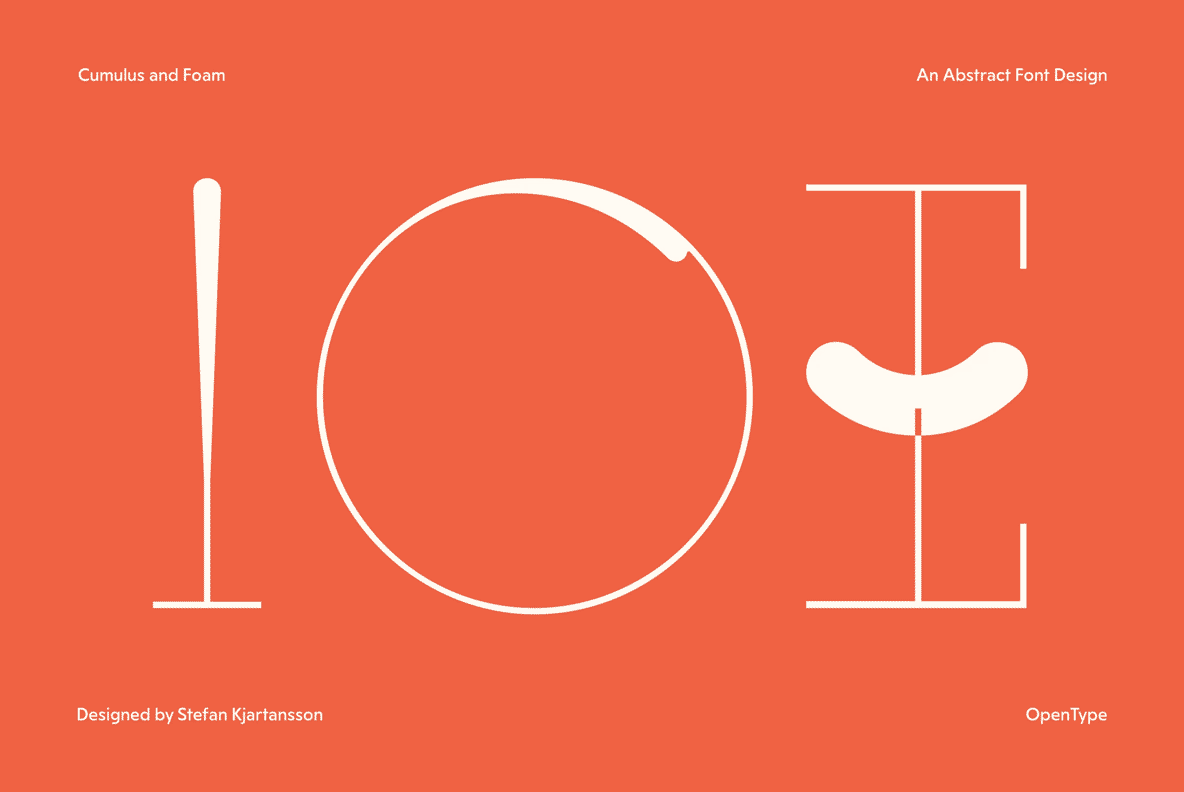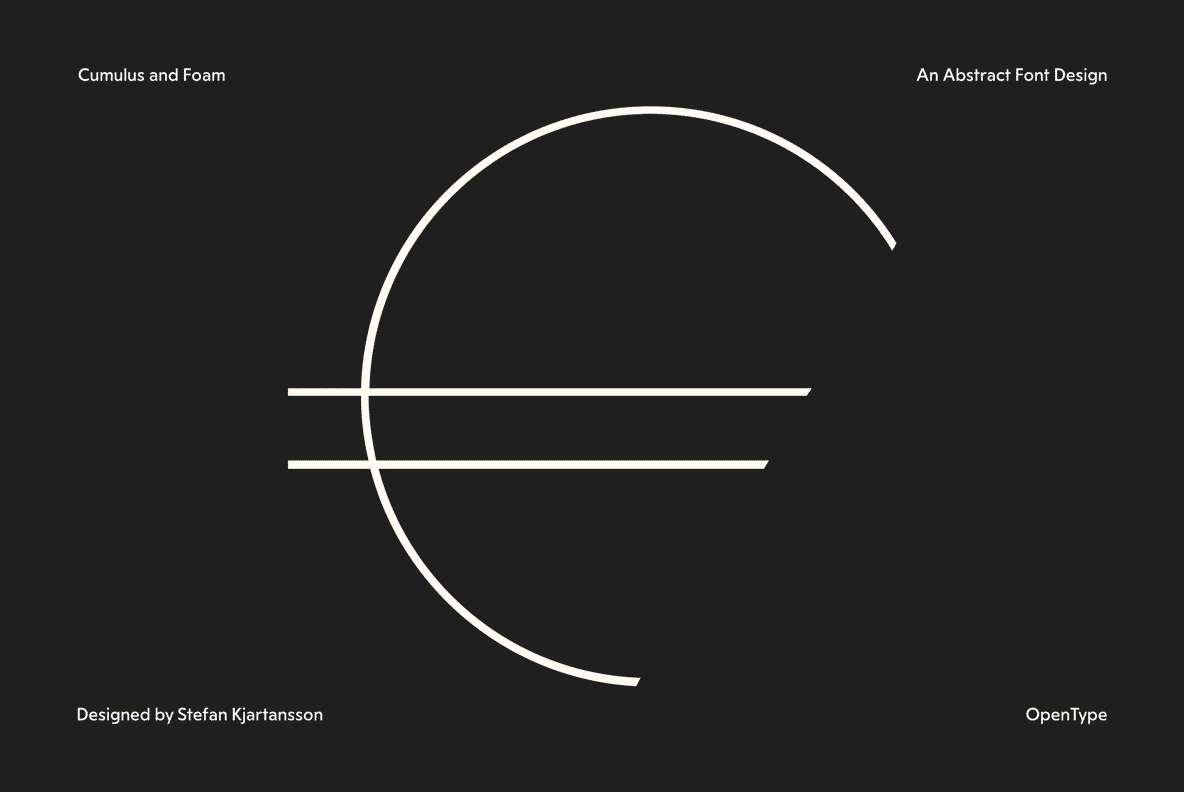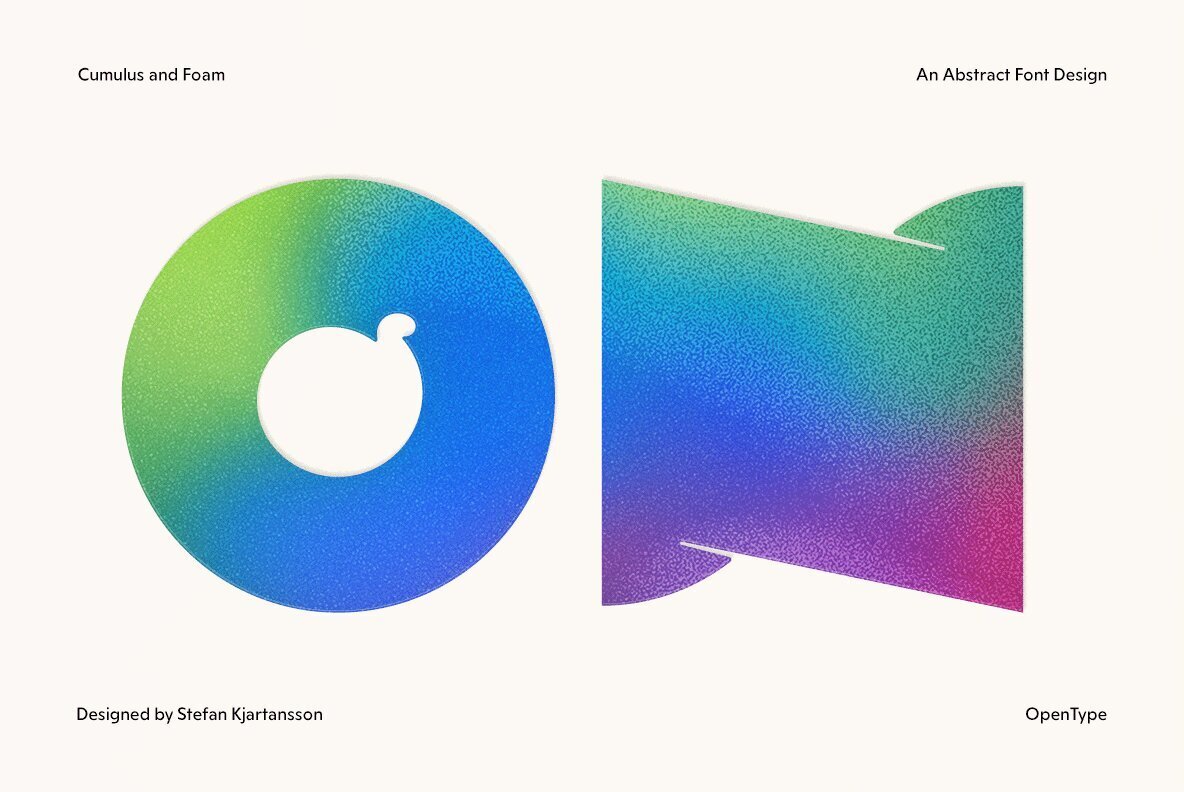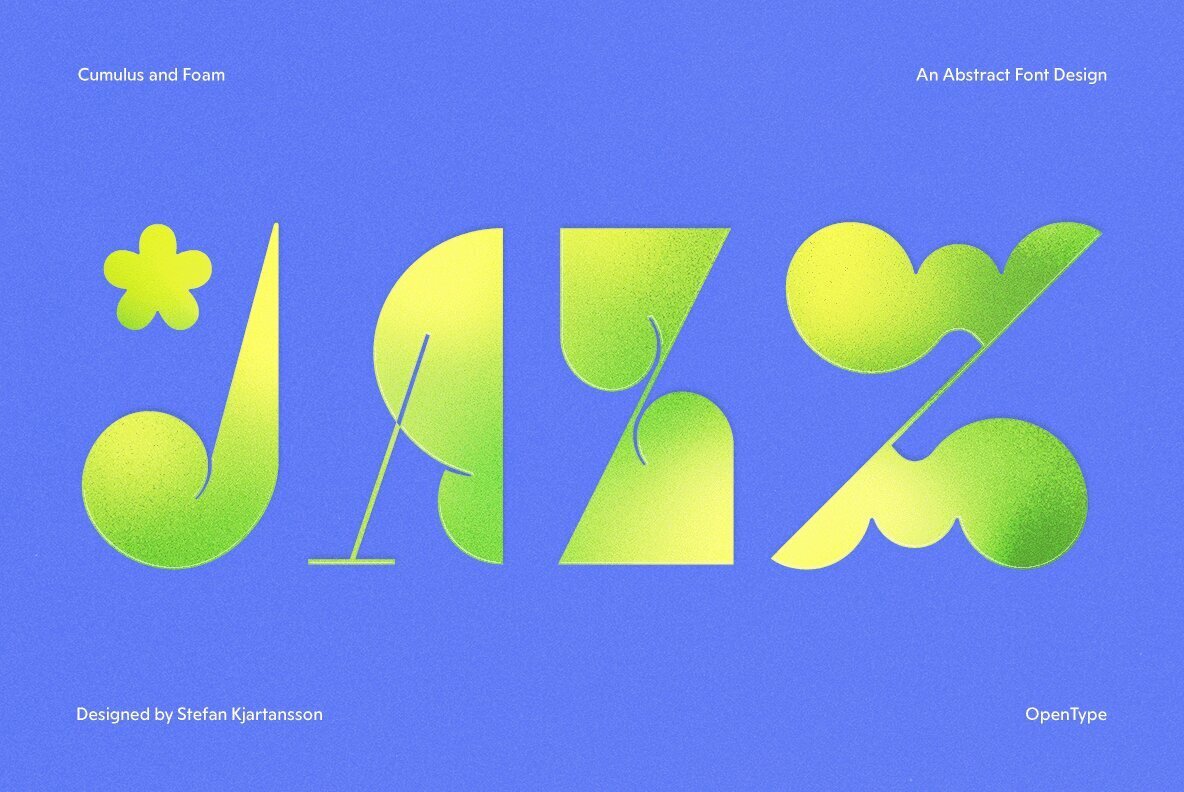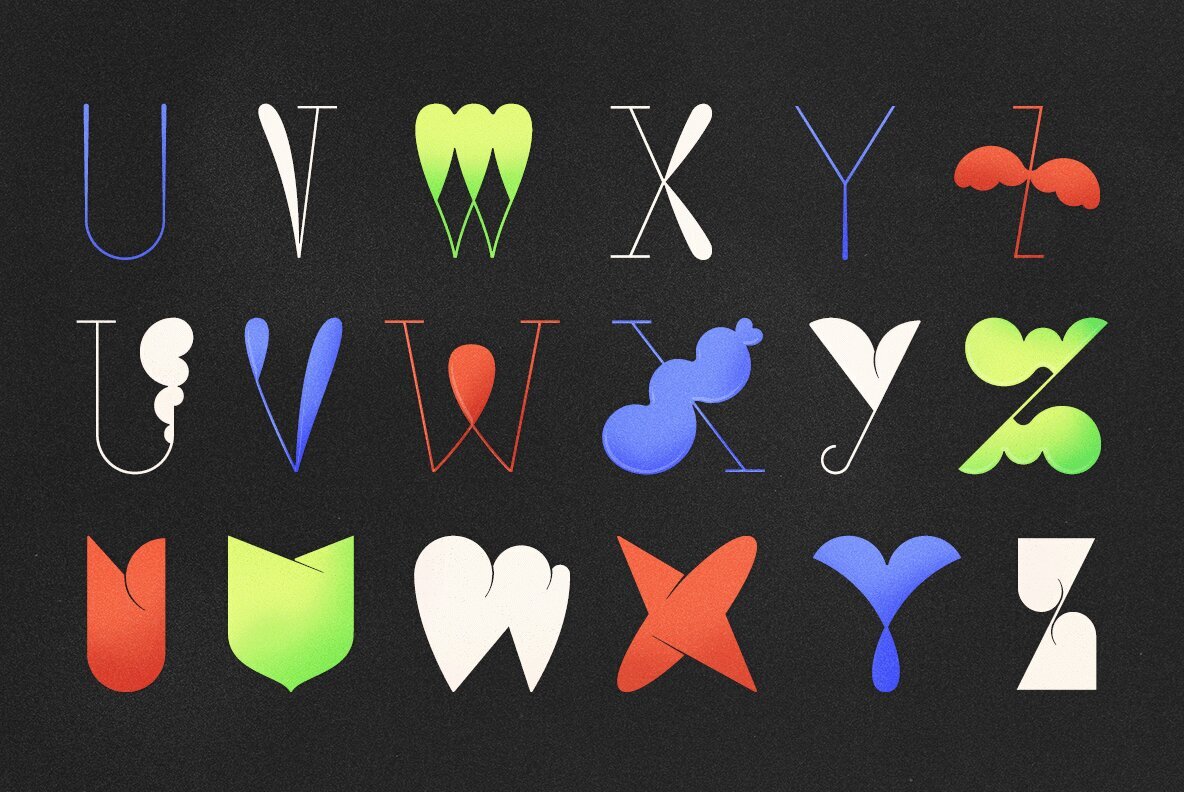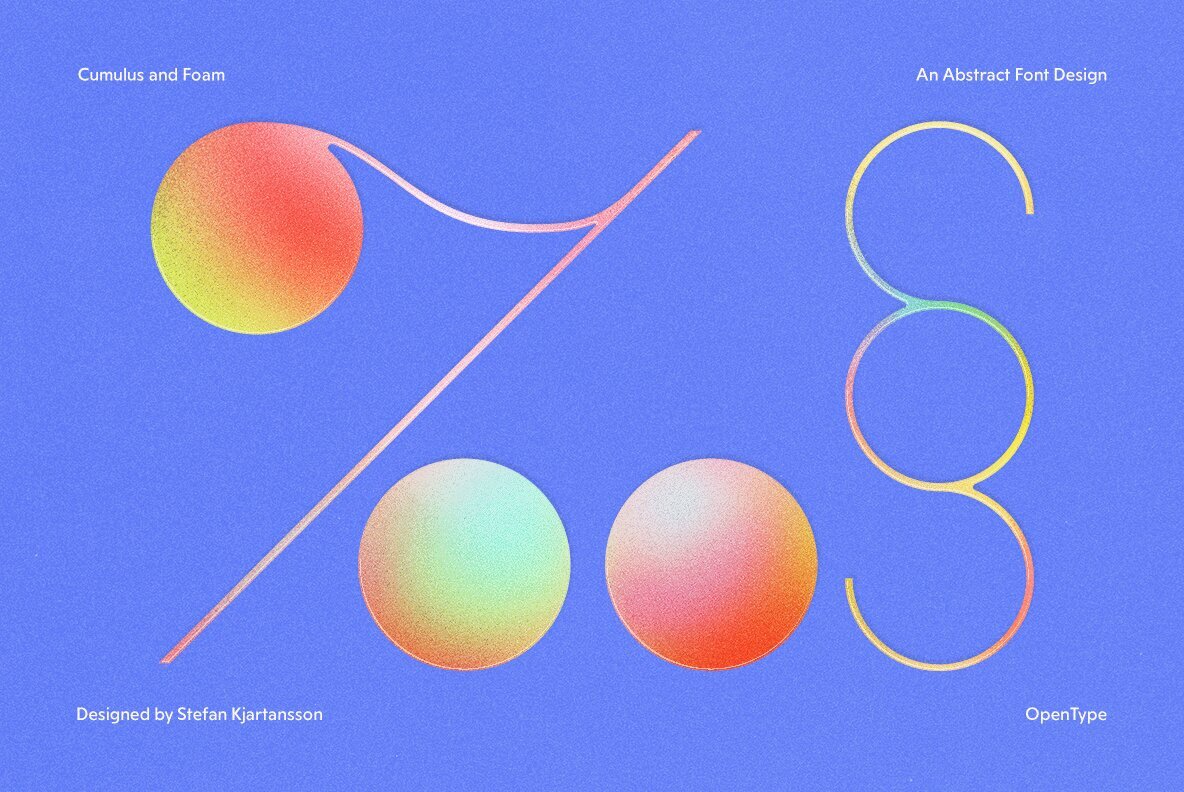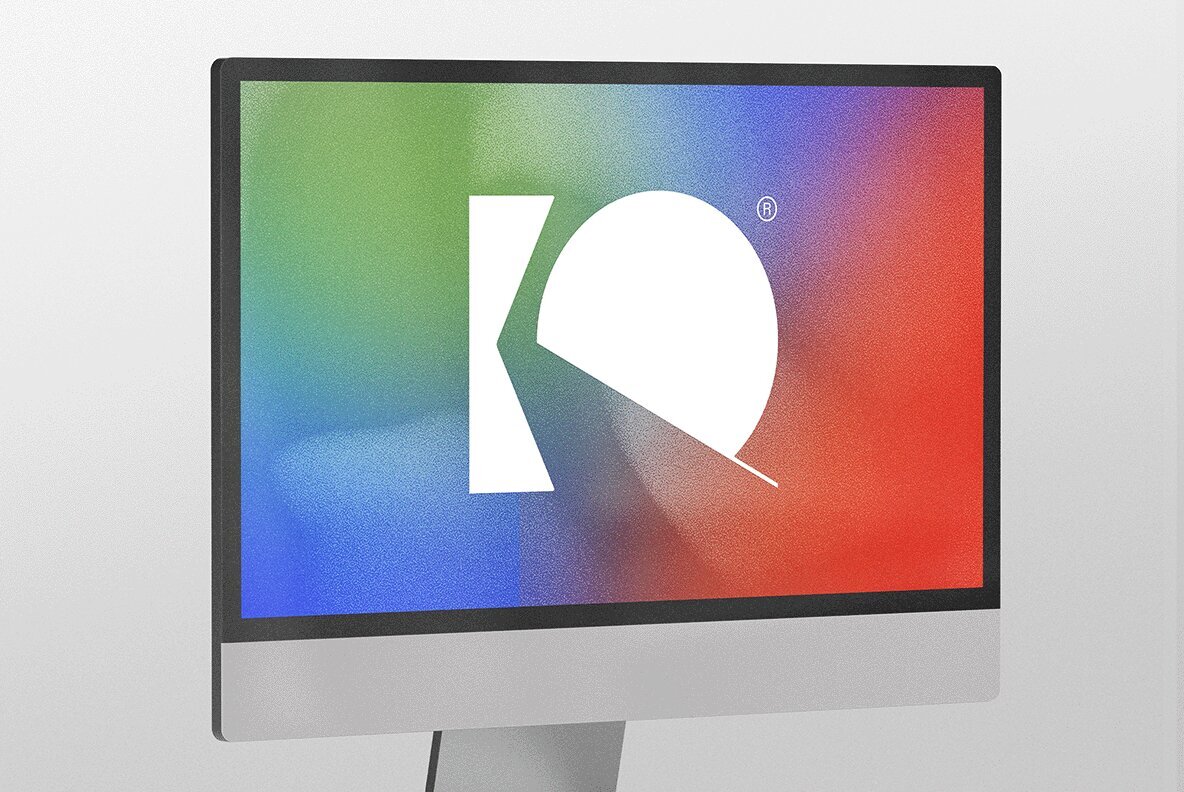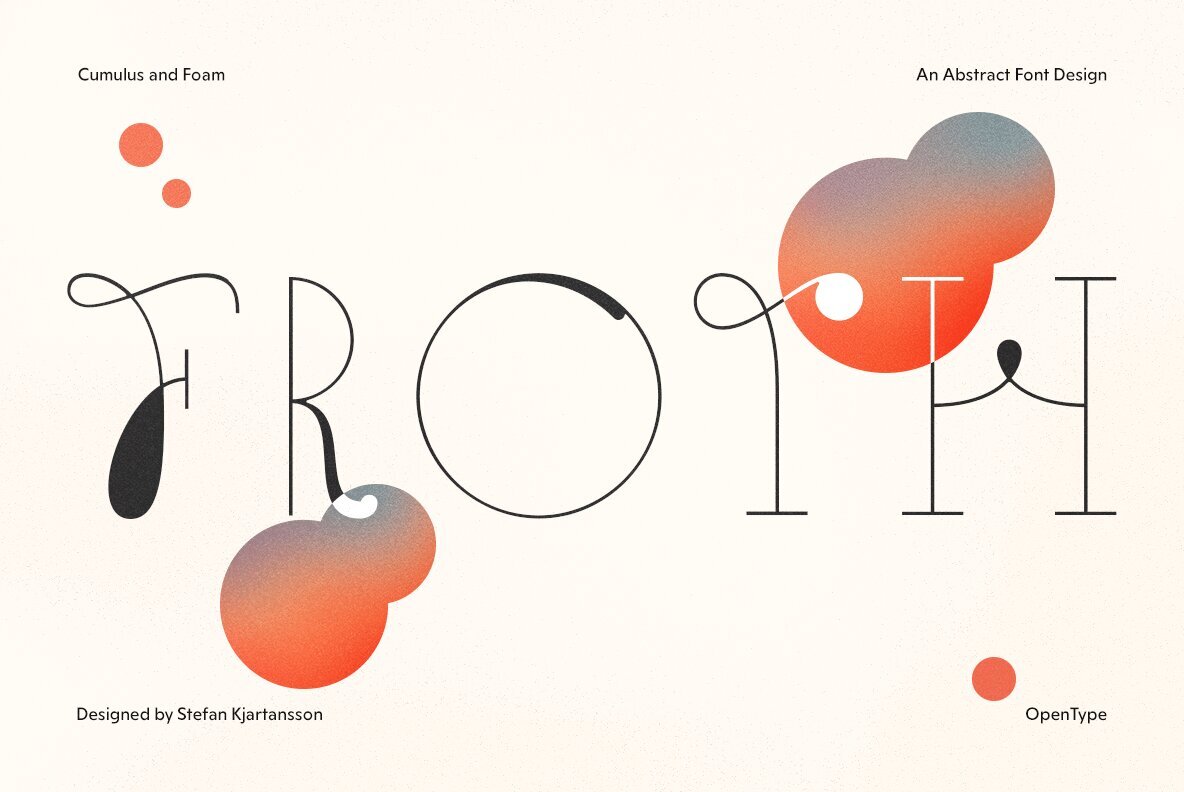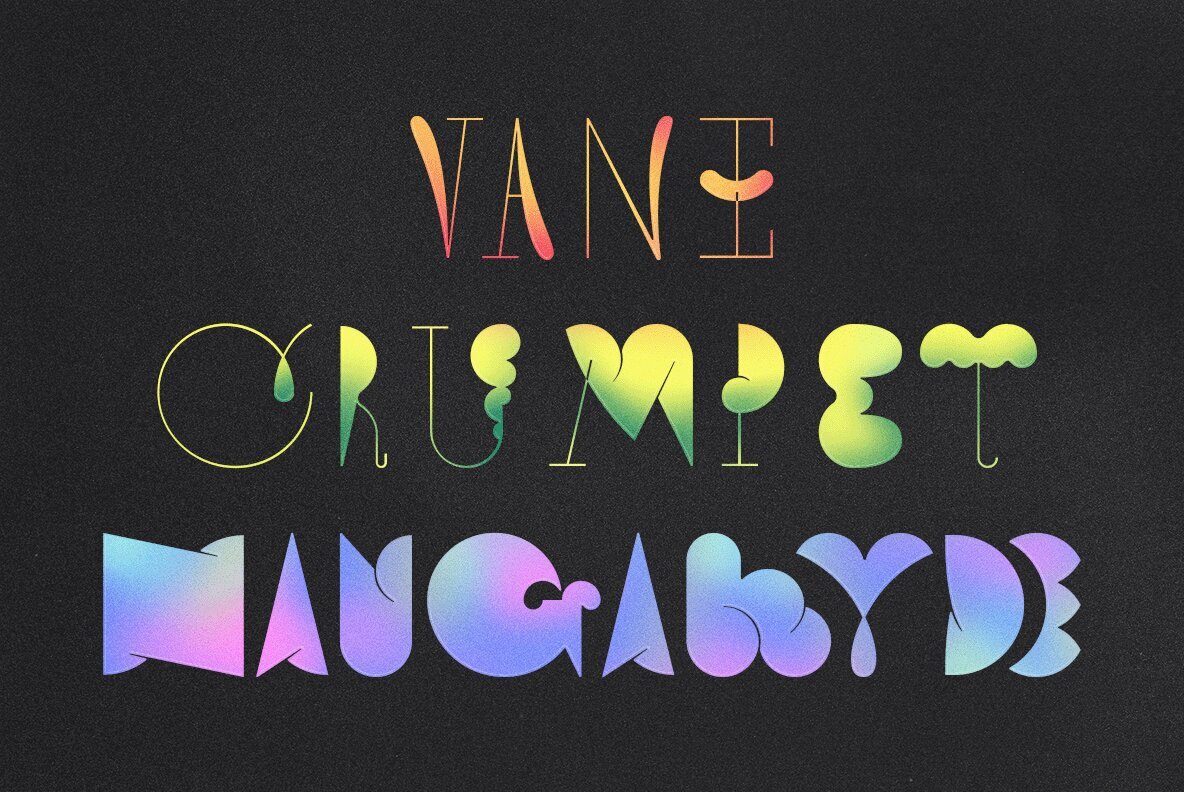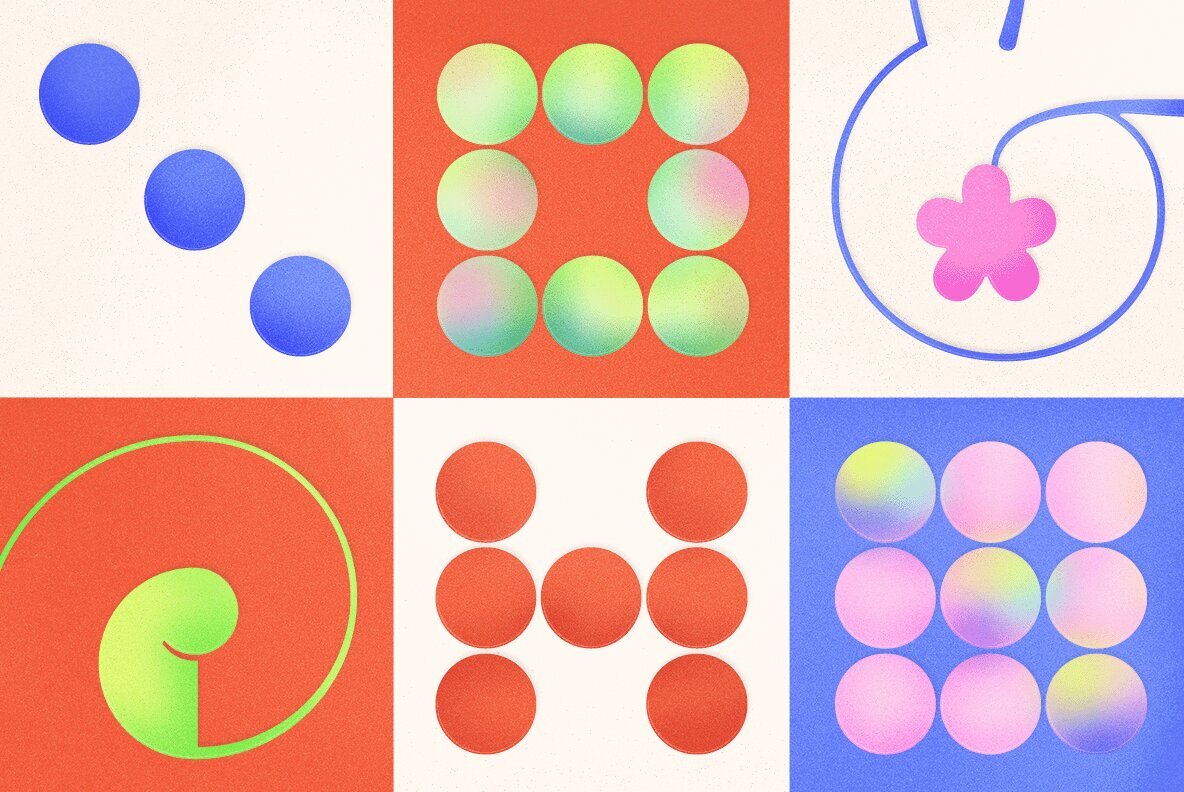
Cumulus and Foam Font
by Stefan Kjartansson
Cumulus & Foam, the most beautifully grotesque font of our time. As it is in life, it is in art: beautiful is easy, reassuring, and affirming. It commands a comfortable space, and reliably adheres to the rules established therein. In its style, message, and momentum, beautiful is a confirmation that our systems make sense, and, in its most successful form, allows us to inhabit that proof. And we are blissful to be there! It is a space that hears our tremors, and responds with a mollifying "hush". In this way, beautiful itself did not need to be created; it was created because it is needed. What, then, of the unbeautiful? The value of a dischordant note, garish palette, misshapen form? Cumulus & Foam is a specimen for such investigation. In Stefan Kjartansson's newly-minted font, the characters spawn awkward spaces and strange intersections. Dialogues within the unruly family are without agreed message, and the three uppercase typefaces - with surnames Crumpet, Vane, Naugahyde - have abandoned the classic unifying key. Their influences are discernible - brash collisions of the 1980s, art deco's voluptuous bubbles, and dadaism's implausible juxtapositions - but otherwise they are incorrigible. In short, they don't seem to be listening to the rules of beauty, and they don't really care. And herein a freedom was born. They tease us with allusions to peacocks, mustaches, umbrellas and feathers. They blossom, heave, and knock each other around. They are a glorious parade of grotesque enthusiasts. They offer proof of nothing. The duty of the unbeautiful is not to affirm; rather, it is to develop. And development is directed by discomfort. Like other unbeautiful creations, Cumulus is not an easy read. Its delicate origins (in Didot) are perceptible, but this familiarity is cloaked with malproportioned outgrowths and misfigured swellings. Not only have the characters all but eluded recognition, there is a sense that they haven't ceased to form. As clouds transmogrify when borrowed for a dream, so does Cumulus bloom and thrust when committed to a baseline. The relationship between letterform and hand is inverted. This prompts a second thought. What does it spell, and what does it mean. What else could it spell, what else could it mean? Directing the protean elements almost becomes a process of mutual adaptation. As nuances are discerned, Cumulus nudges and we reconsider. And what was previously an absence - of reassuring proofs - is now a different sort of beauty: a coalescence of disjointed systems with all sorts of notions. Pitch-perfect articulation is possible, though final messages might surprise. Cumulus is not passive, though it will negotiate. And by the time you've all agreed, Cumulus has won. It revels and dominates, its reign unchecked. Even when airbrushed. Additional products used for slideshow images:
Born and raised in Iceland, Stefán Kjartansson (kuh-yaRT-an-soen) got his BA from Iceland Arts in 1993. After illustrating children’s books and comics, he expanded his range to graphic design, art direction and digital design. As soon as the internet reached the shores of Reykjavík, an opportunity in A...